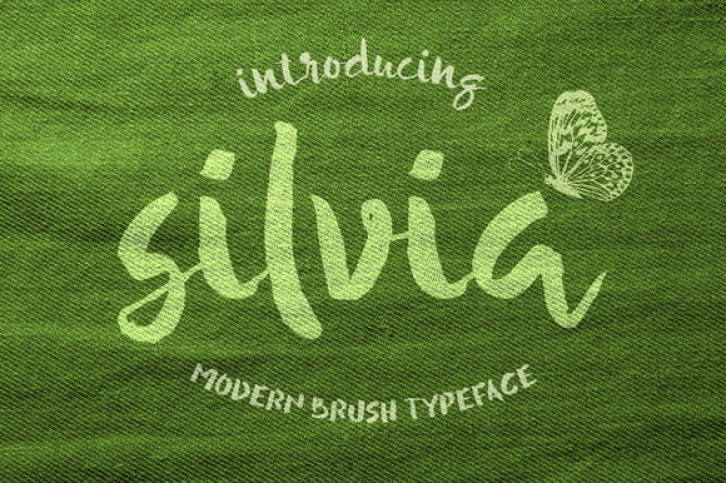
Silvia is a charming painterly font, perfect for a wide range of designs. This display font is casual and relaxed, giving your designs a laid-back feel.